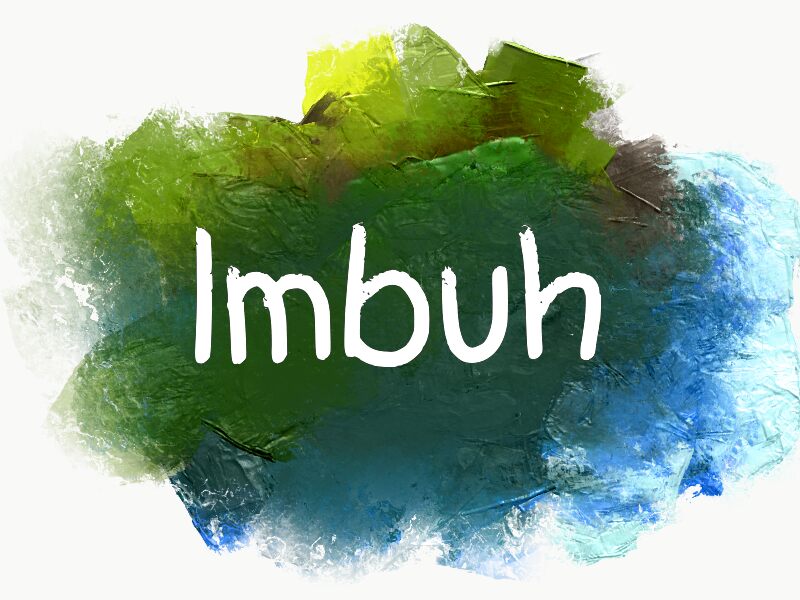
Imbuh
Imbuh font by wep is a free brush typeface that wears its texture proudly. Each letter carries a grainy, inky edge with soft, rounded interiors, like strokes pulled from a slightly dry marker. The rhythm feels loose and human—bouncy without getting messy—so headlines read with personality while staying clear at a glance.
Using Imbuh, you get honest, handmade energy for posters, cafe menus, craft packaging, social graphics, event flyers, and sticker sheets. That gritty fringe adds bite, while the open forms keep lines readable even at mid sizes. This free font pairs nicely with a clean geometric sans for body copy; keep the sans small and let Imbuh lead the size.